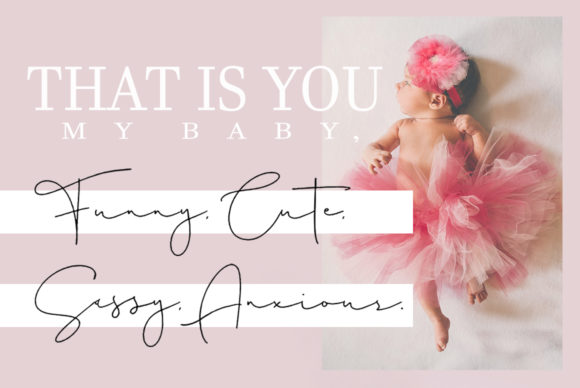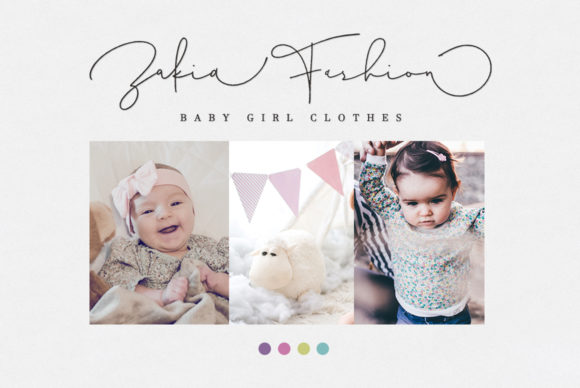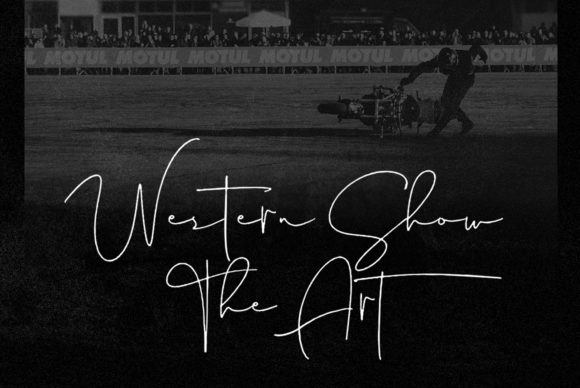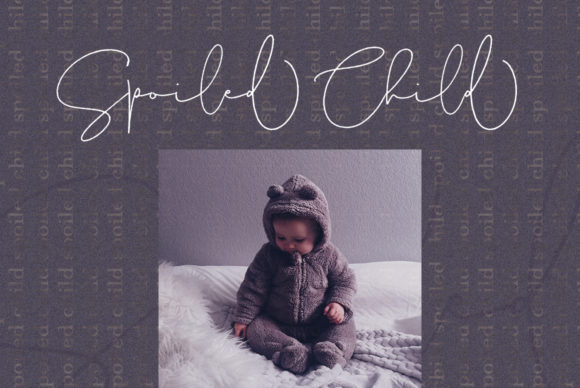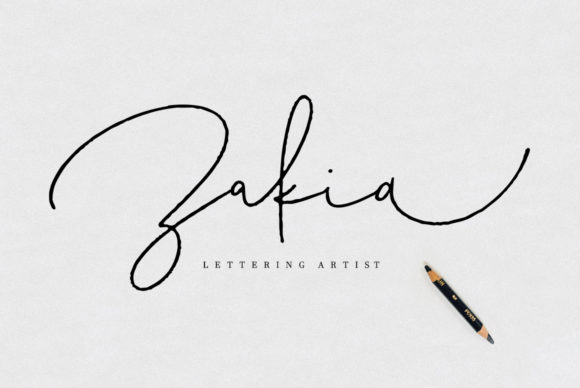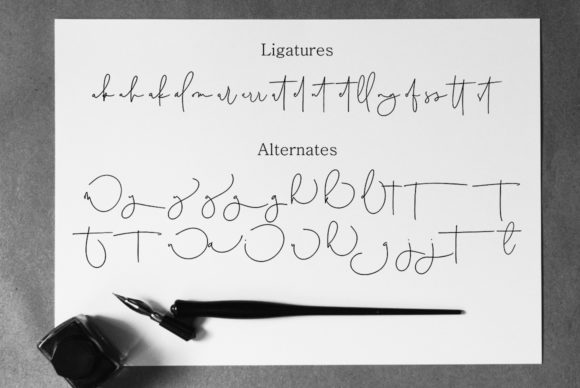
Discover the Charm of Handwritten Design with Australia Script Font
Have you ever been inspired by a beautiful handwritten note or a perfectly crafted signature? For designers, there’s something special about capturing the essence of handwriting in digital design. It’s a way to add a personal touch and make your work stand out from the crowd.
| 📌 Product Name | Australia Script Font |
| 👤 Author | Dhan Studio |
That’s where the Australia Script Font comes in – a stunning monoline handwriting font that exudes elegance and sophistication. Designed to mimic the natural flow of handwriting, this font is perfect for adding a signature style to your designs. With its unique alternates and versatility, it’s no wonder why designers love using the Australia Script Font for everything from invitations to branding and logos.
Australia Script Font Key Features
- Font Style: Script, handwritten font
- Unique Characteristics: Distinctive, elegant, and cursive script font with a touch of classic charm, perfect for creative and artistic projects
Australia Script Font Review
Overall, I think the Australia Script Font is a great addition to any designer’s toolkit. Here’s what I like about it: ✨
- Unique, elegant feel: This font is perfect for adding a touch of sophistication to your designs.
- Highly customizable: The font comes with a range of OpenType features, allowing you to fine-tune the look and feel to suit your project.
- Good legibility: Despite its script-like appearance, the font is still easy to read, even at smaller font sizes.
- Not ideal for body text: While the font is great for headings and titles, it may not be the best choice for large blocks of body text.
- May require manual adjustments: Depending on the specific project, you may need to make some manual adjustments to the font’s spacing and layout to get the desired look.
Overall, I’m impressed with the Australia Script Font. It’s a versatile and highly customizable font that can add a unique touch to your designs. With a little bit of creativity and experimentation, I’m confident that you can get the most out of this font.
For optimal results, use the Australia Script Font in bold or italic to add emphasis to your text. Pair it with a clean sans-serif font for body text to create a balanced design.
The Australia Script Font is ideal for use in wedding invitations, branding materials, and any design that requires a touch of elegance and sophistication.